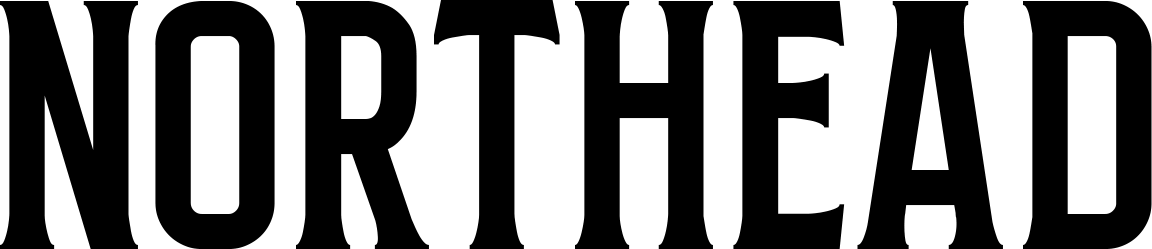
Northead Font
When it comes to achieving a vivid retro quality for your text, Northead is the kind of high-quality font you’ll find useful. This bold all-caps vintage royal font shows promising potential for turning your design into attention-seeking state-of-the-art typography. So no wonder why this American diner font makes such a great choice for signage, logos, posters, movies, banners, and anything like that. Amazing, right?